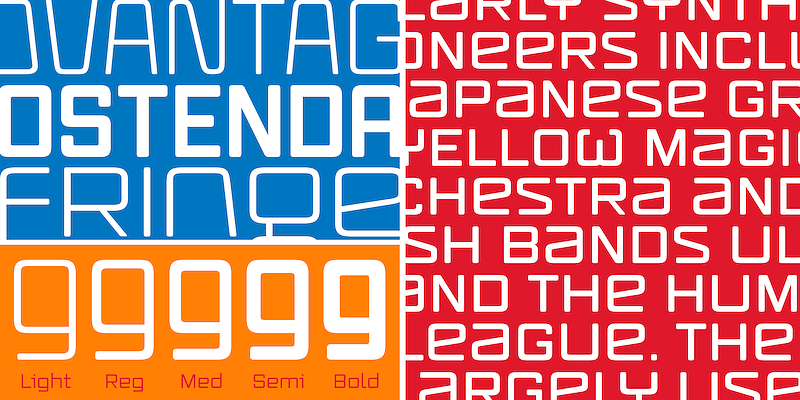
Vox Round Font is perfect for friendly branding, children's materials, approachable signage, modern tech interfaces, playful advertising campaigns, accessible communications, rounded corporate designs, and soft display typography.
What makes Vox Round Font exciting is its friendly rounded character that embodies approachability and modern warmth through circular letterforms and soft sophistication. This welcoming typeface features rounded construction, gentle details, and accessible personality that captures the essence of user-friendly design and inclusive communication, making it ideal for projects seeking to communicate friendliness, accessibility, and modern approachability with authentic rounded appeal and contemporary warmth.
The Vox Round Font family includes Thin, Light, Regular, Medium, Bold, and Black weights, each maintaining the characteristic rounded friendliness and accessible appeal that define this distinctive typeface's welcoming personality and modern sophistication.
Vox Round Font Free Download provides access to a typeface that perfectly captures the essence of friendly communication and accessible design. This approachable font brings authentic user-friendly aesthetics to contemporary projects, making it essential for tech companies, educational organizations, and inclusive brands targeting audiences who value accessible communication and friendly user experiences. The font's rounded construction and gentle details ensure immediate recognition of approachability and warmth while its distinctive character creates comfortable connections among users seeking friendly interactions and accessible information. Whether designing user interface systems, educational materials, or inclusive brand communications, this font delivers the friendly authenticity and accessible sophistication that user-centered audiences expect. Its rounded foundation and accessibility symbolism make it indispensable for projects celebrating inclusive design, user-friendly communication, and the welcoming power of accessible typography, ensuring communications resonate with audiences who value the comfort, friendliness, and inclusive warmth that define authentic user-centered design and accessible communication across diverse digital and print applications.